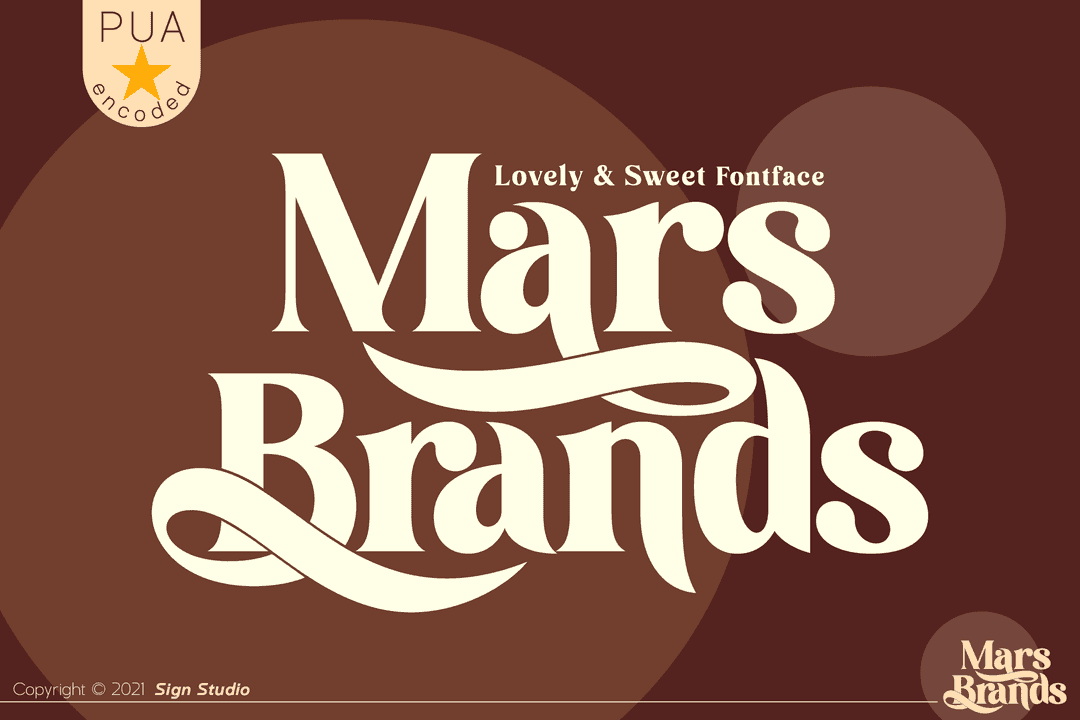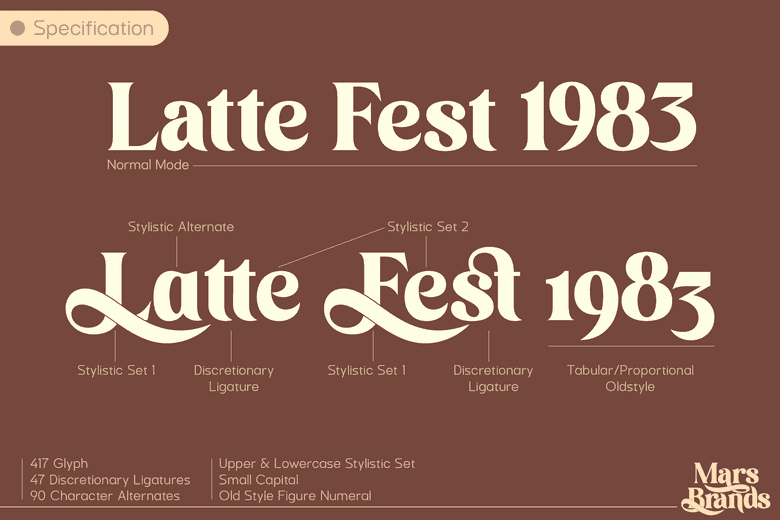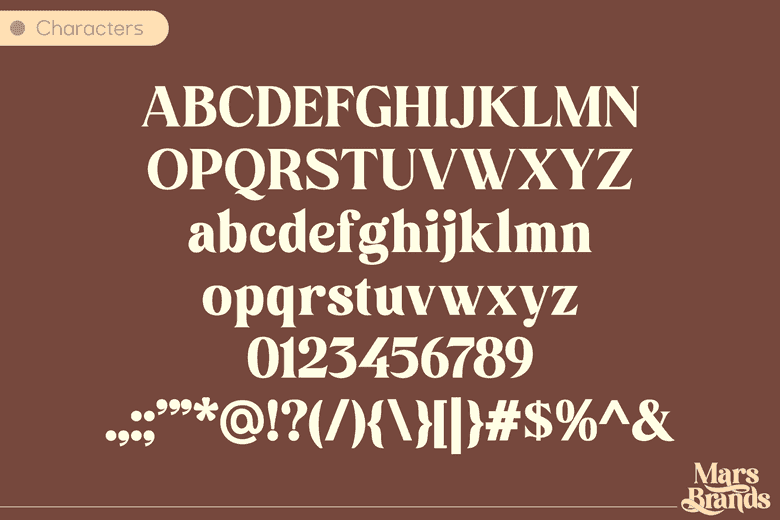
Mars Brands is an exquisite yet smooth serif typeface created to produce a romantic and beautiful appearance. Featuring lowercase to uppercase alternatives and ligatures, it makes Mars Brands ideal for wedding invitations, greeting cards, posters, logotypes branding of products, posters and so much more!